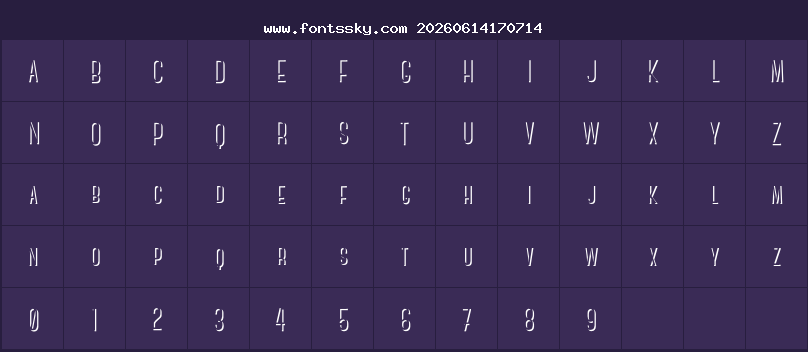
Canter Bold Shadow Preview
• Font Name: Canter Bold Shadow
• Full Font Name: Canter Bold Shadow
• PostScript Name: Canter-BoldShadow
• Manufacturer: Christopher J. Lee
About Canter Bold Shadow.otf
Canter Bold Shadow.otf is a modern, elegant sans-serif font designed for ultimate readability and visual harmony. Perfect for branding, headlines, web design, and print materials.